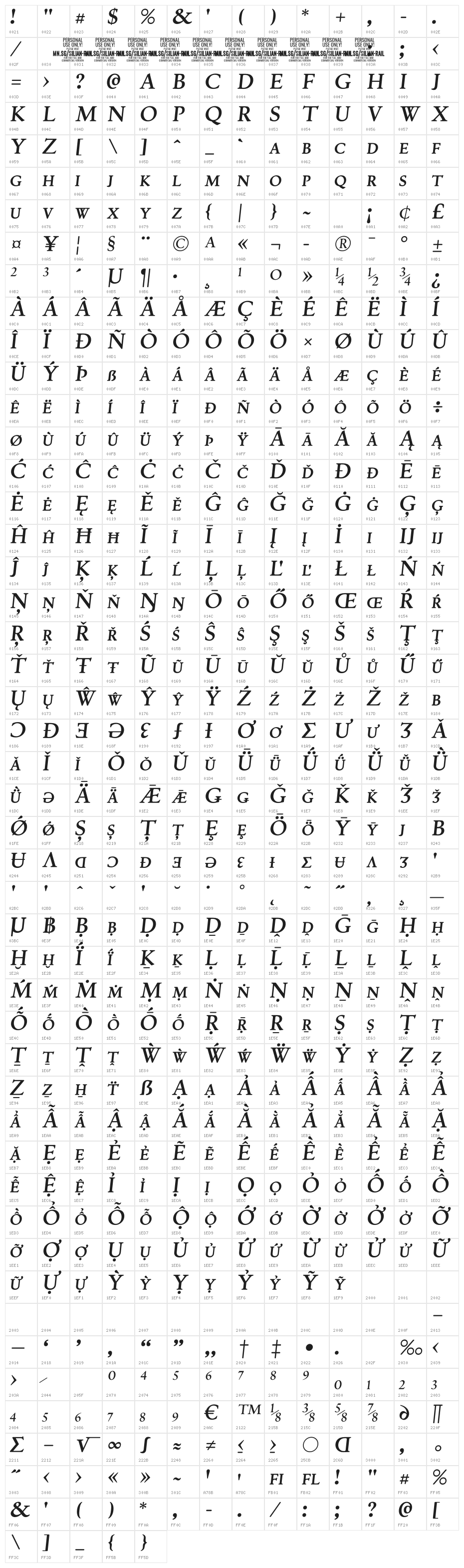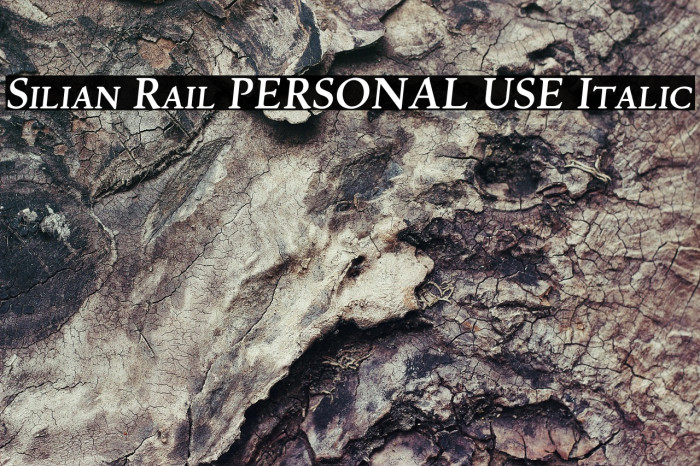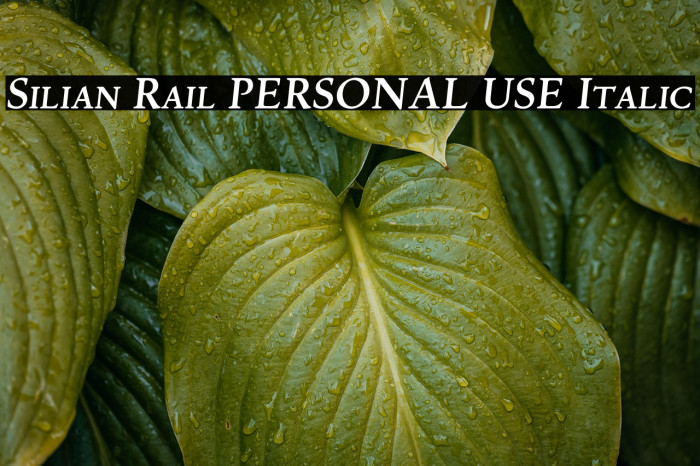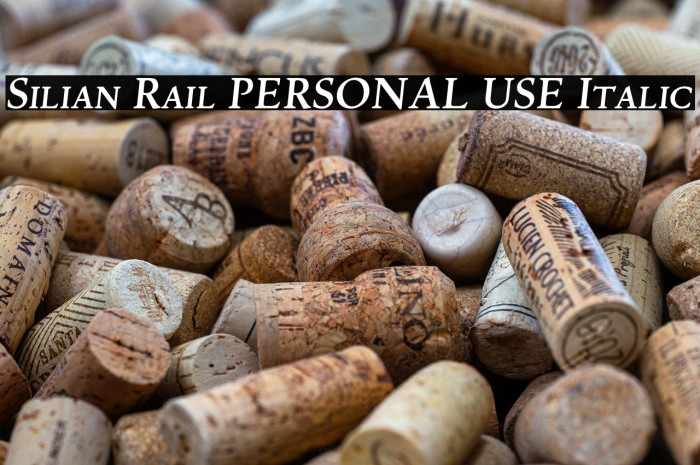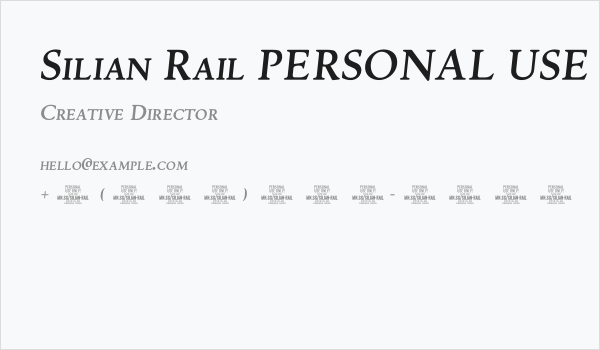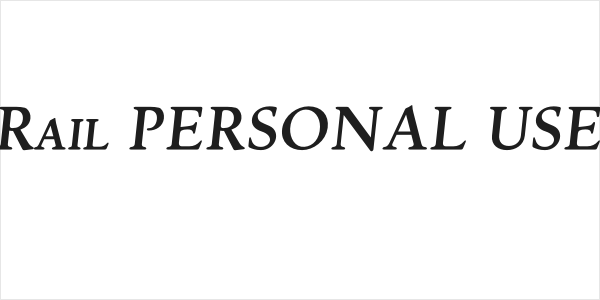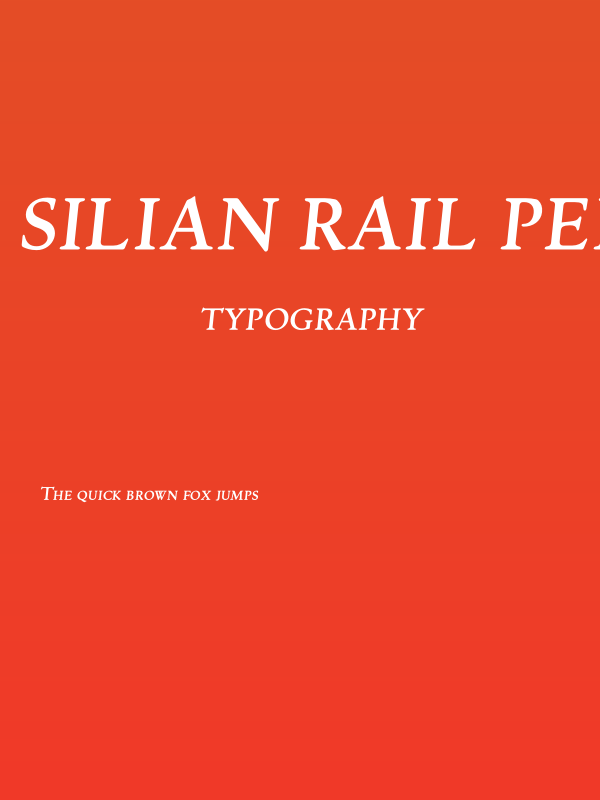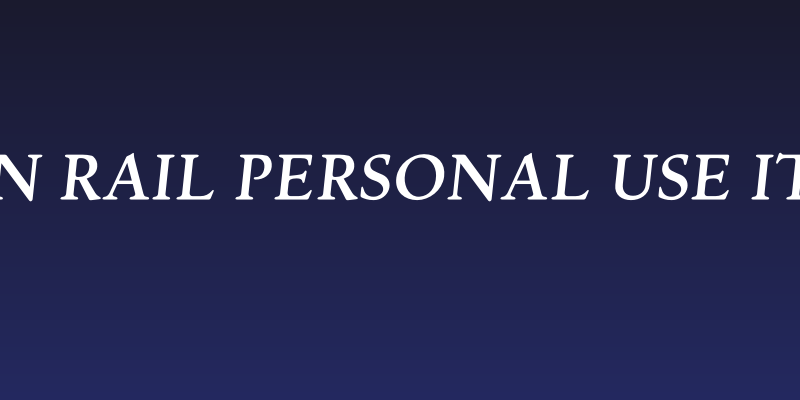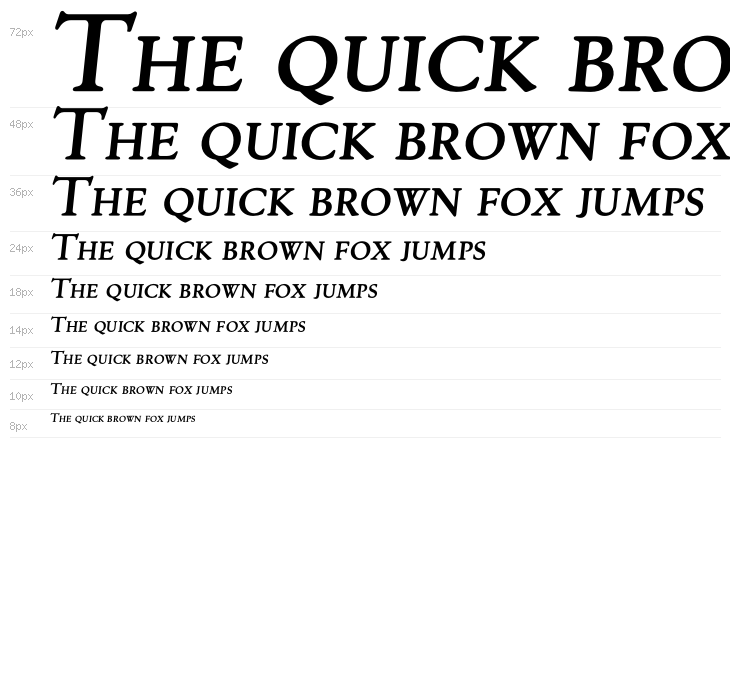
Silian Rail PERSONAL USE Italic Font
Silian Rail PERSONAL USE Italic Description
This font features a classic serif style with a distinct italic slant, giving it an elegant and sophisticated appearance. The serifs are pronounced, adding a touch of formality and tradition. The characters are well-proportioned, with a slight emphasis on the vertical strokes, which enhances readability. The font maintains a consistent weight throughout, providing a balanced look. The numerals and special characters are designed to match the overall aesthetic, ensuring uniformity across all text elements. This font is suitable for projects that require a touch of elegance and formality.